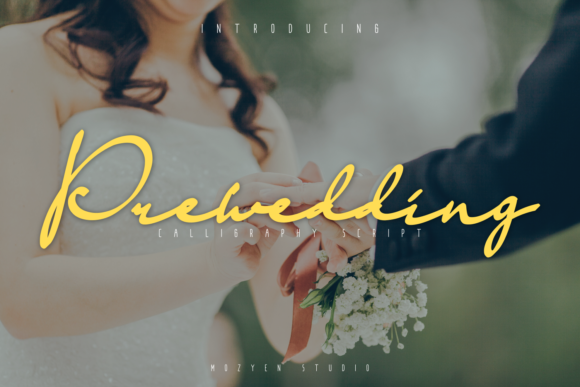
Discover Prewedding Font, the Enchanting Script for Unique Creative Expressions:
Journey into the world of Prewedding, a captivating script font that exudes fun, quirkiness, and authenticity. This enchanting handwritten font is a masterpiece crafted by mozyenstudio, designed to transform your creative visions into stunning realities. With its playful and expressive characters, Prewedding is the perfect companion for adding a personal touch to your designs.
Let Prewedding Font Captivate Your Audience:
With its whimsical curves and charming imperfections, Prewedding Font invites your audience into a world of imagination and delight. Its unique ligatures and alternate characters add an extra layer of visual interest, making your designs stand out from the crowd. Whether you're creating wedding invitations, branding materials, or social media graphics, Prewedding will elevate your work to new heights of creativity.
Unlock Endless Creative Possibilities:
Prewedding Font is a versatile chameleon, effortlessly adapting to a multitude of design styles. Its playful personality shines through in whimsical illustrations, while its elegant curves lend a touch of sophistication to formal invitations. Whether you're crafting logos, posters, or web designs, Prewedding effortlessly complements your vision, adding a touch of whimsy and charm that captures the hearts of your audience.
Let Prewedding Font Be Your Creative Muse:
Experience the magic of Prewedding Font as it sparks your creativity and ignites your imagination. Its enchanting aura will awaken your inner artist, inspiring you to create designs that resonate with your audience on a deeper level. Embrace the quirkiness and authenticity of Prewedding, and watch as your designs captivate and enchant all who lay eyes upon them.